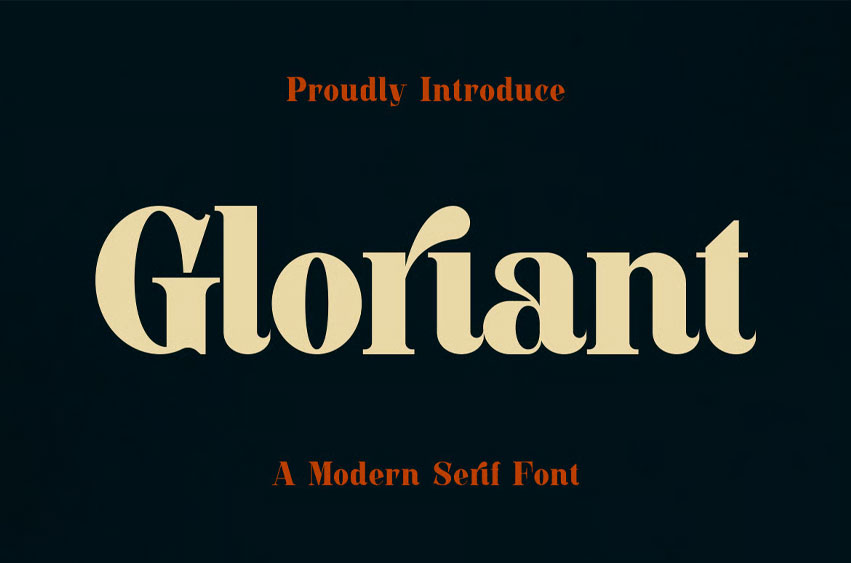
Gloriant Font
Gloriant Font is a modern serif typeface that helps convey messages effectively in your designs. This font is ideal for various applications, including logos, labels, badges, branding, magazines, posters, titles, gigs, and covers.
Our font includes uppercase and lowercase letters, numerals, punctuation, and OpenType features. For stunning designs, you can also combine it with other fonts as a complement.